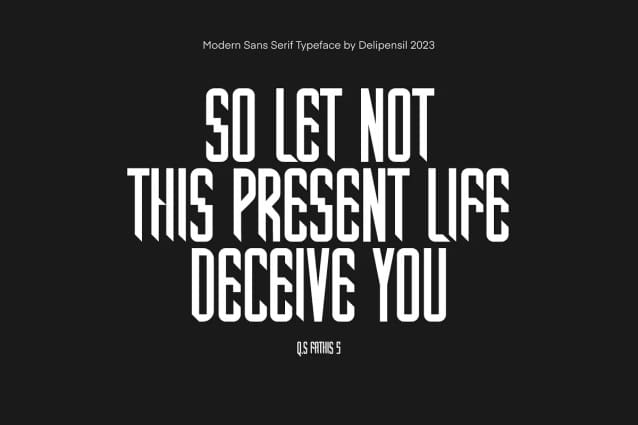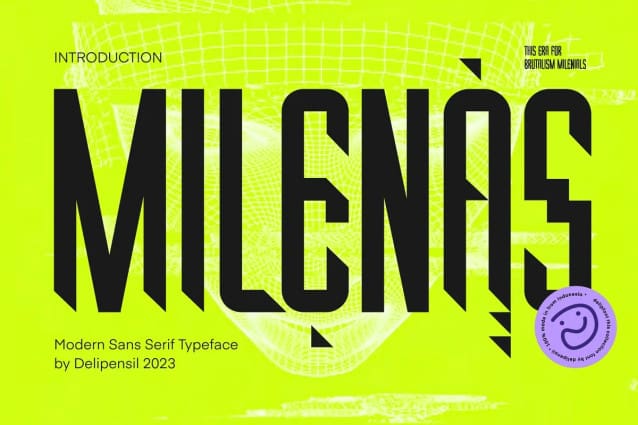
Milenas Font
Milenas Font, this font suitable for style Brutalism this era, to make you headline stunning, title more bold, and make your design more Futuristic, everything you need in here